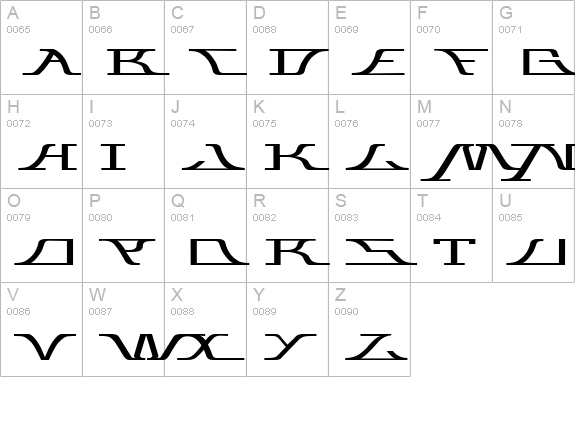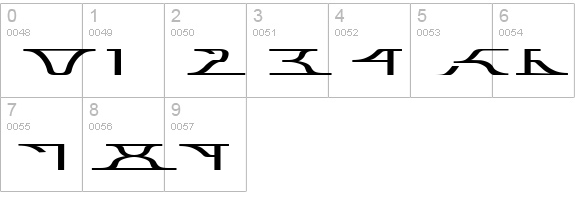
awitched Font Details
Introducing the enchanting and spellbinding Witched Font! This mystical typeface is perfect for adding a touch of magic to your projects. With its whimsical and mysterious appearance, Witched Font is sure to captivate and intrigue your audience. Whether you're working on a Halloween-themed design, a fantasy book cover, or simply want to infuse your creations with a touch of the supernatural, this font is the perfect choice. And the best part? Witched Font is completely free to download at FontsMarket.com! That's right, you can bring a touch of witchy charm to your designs without spending a dime. So why wait? Embrace the magic of Witched Font today and let your creativity soar to new heights!